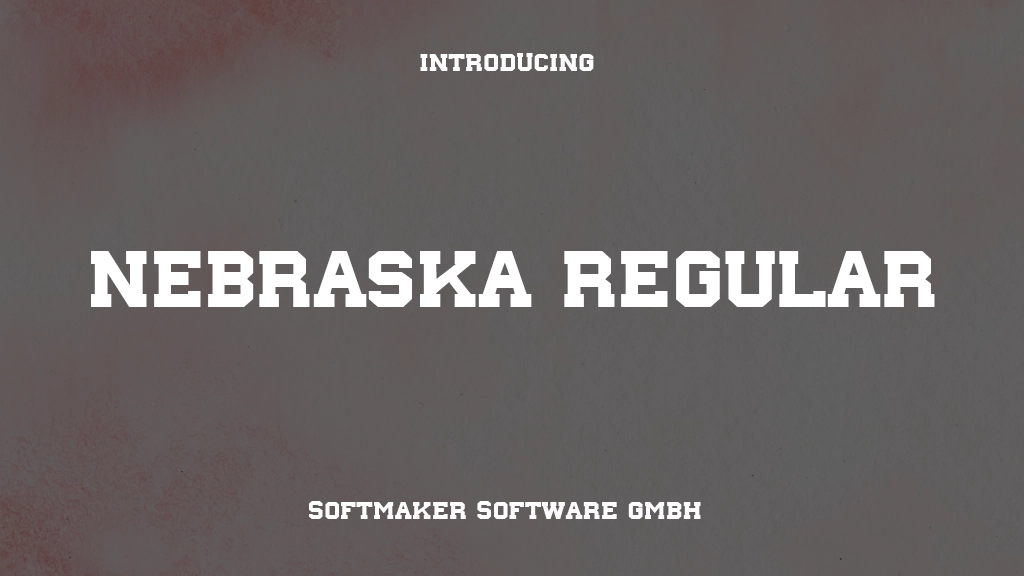
Nebraska Regular is a fun font that can be used for a variety of designs.It is a Regular font, meaning that it has a normal weight and width.It was designed by SoftMaker Software GmbH and is free to use for personal projects.